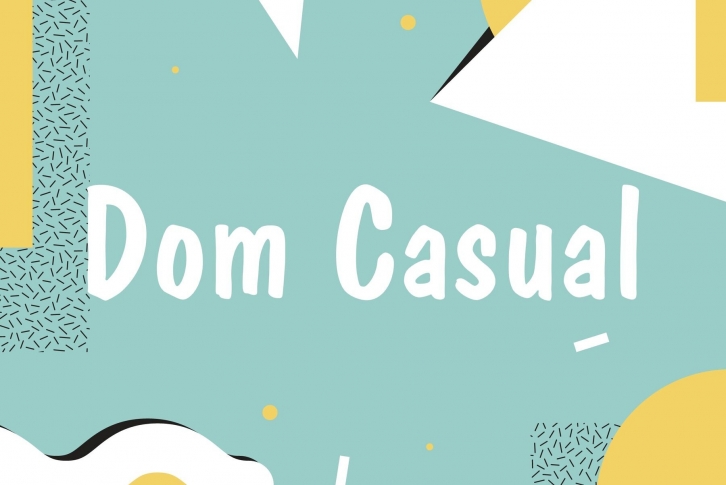
Dom was designed by Peter Dombrezian for American Type Founders in 1951–52. It is an informal unjoined script typeface that looks brushwritten. Its letters are almost monotone, freely or casually drawn. Vertical strokes of them have irregular ending at different heights, and oval axis have slightly different slopes. This typeface is to create a friendly, informal look in signs, advertising, and invitations. The Cyrillic version of the Bitstream digital font was developed by Dmitry Kirsanov for ParaType in 2008